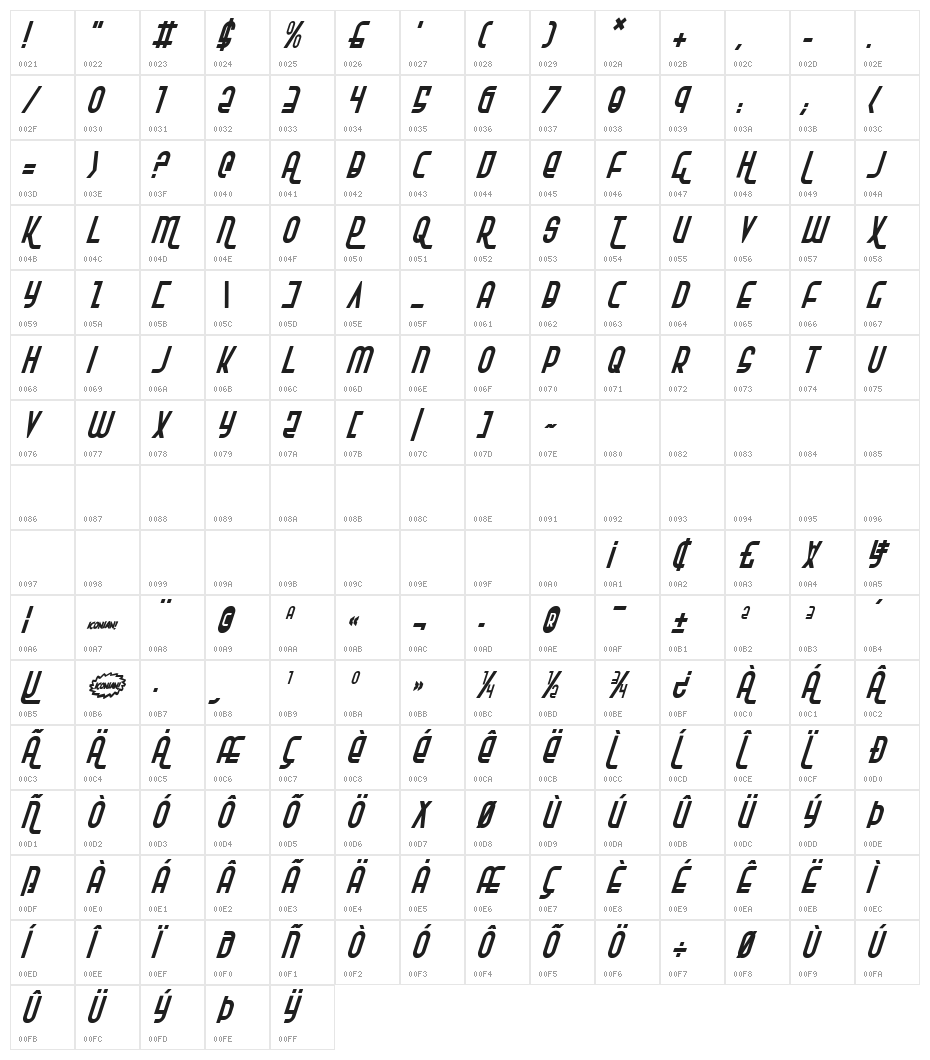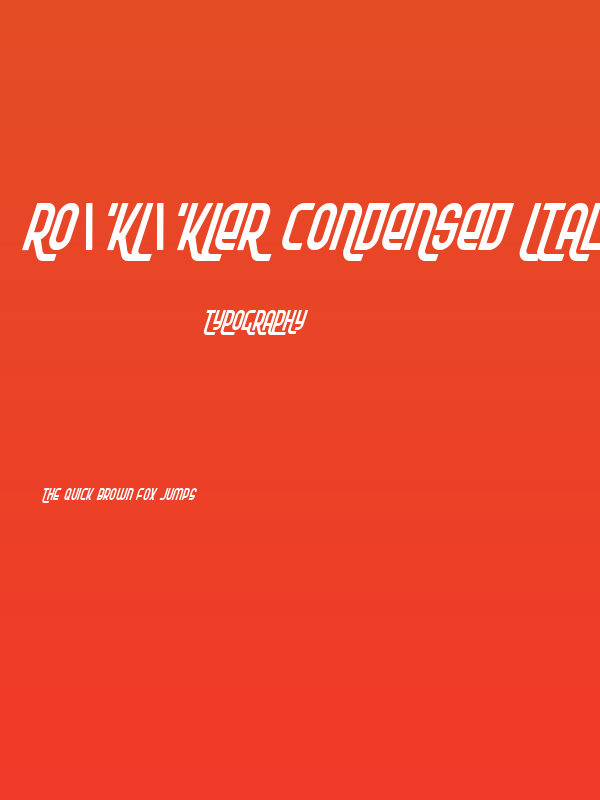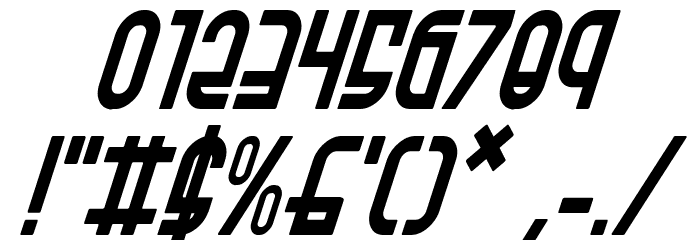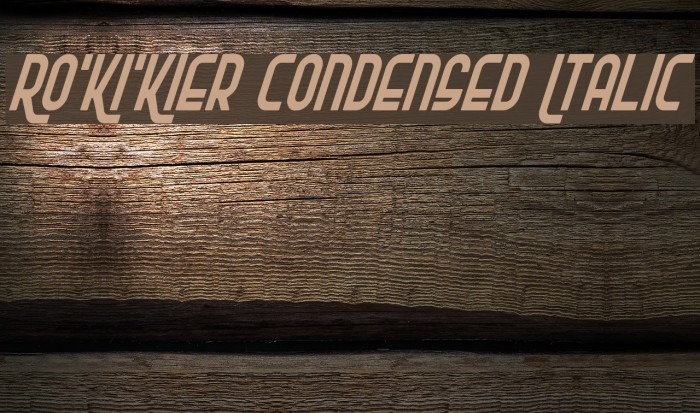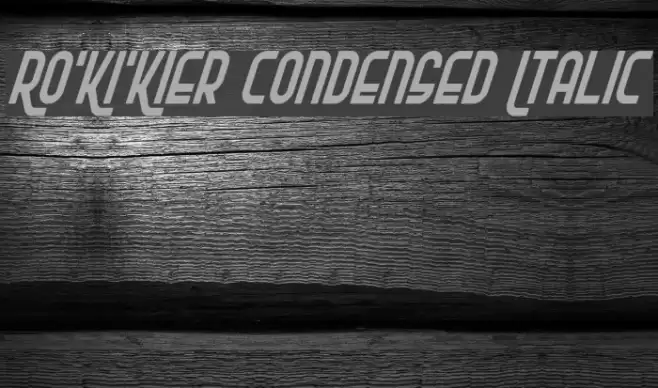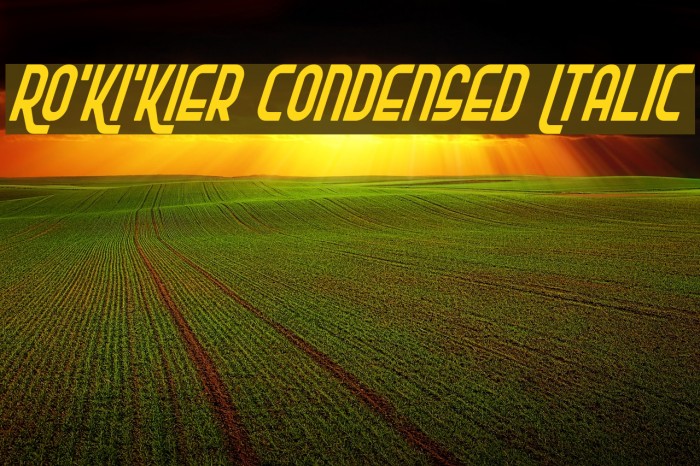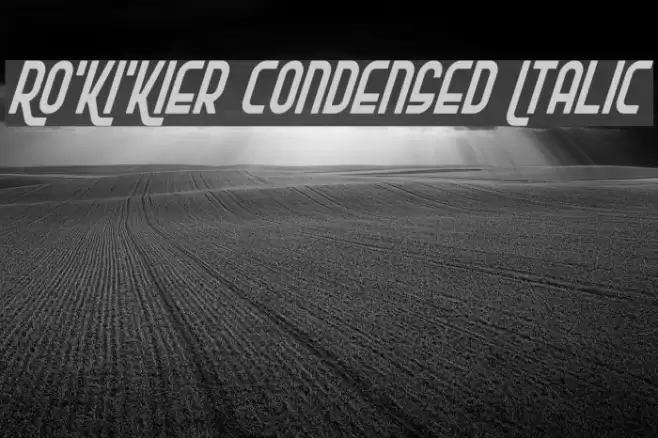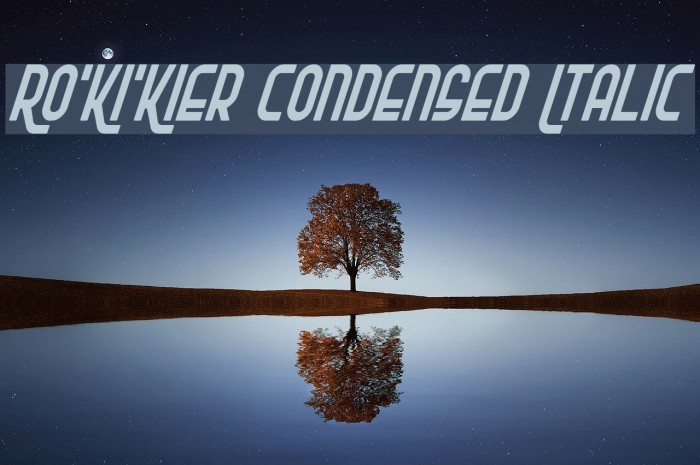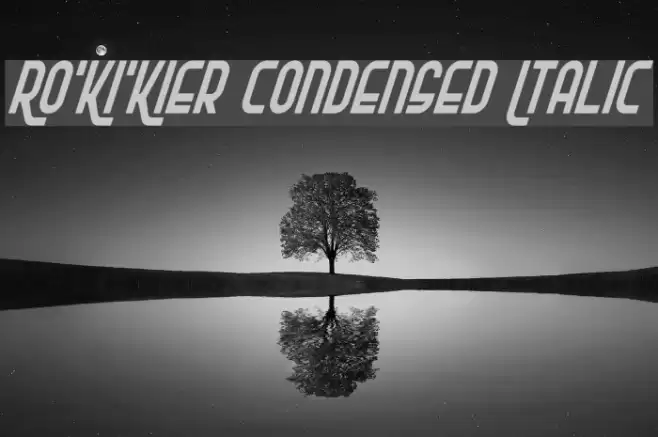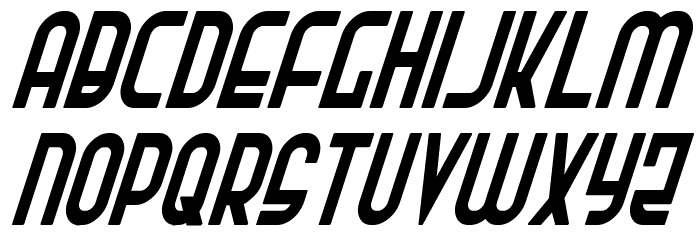
Ro'Ki'Kier Condensed Italic Font
Ro'Ki'Kier Condensed Italic Description
This font features a bold, condensed style with a distinct italic slant, giving it a dynamic and energetic appearance. The characters are tightly spaced, enhancing its compact look. The strokes are consistent in thickness, providing a uniform and cohesive design. The uppercase and lowercase letters maintain a similar height, contributing to its modern aesthetic. The numbers and special characters are designed to match the overall style, ensuring a seamless integration across different uses. Its sleek and angular form makes it suitable for projects that require a contemporary and assertive typeface.
| Proposed Projects | Ideal for sports branding, dynamic posters, modern advertisements, and tech-related projects. |